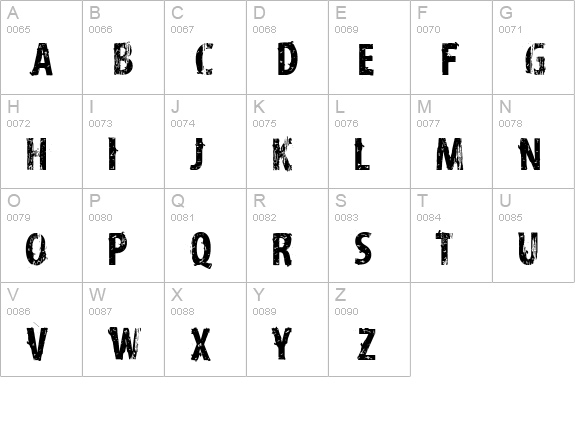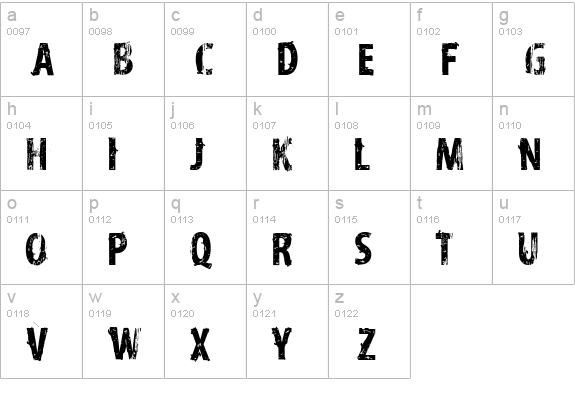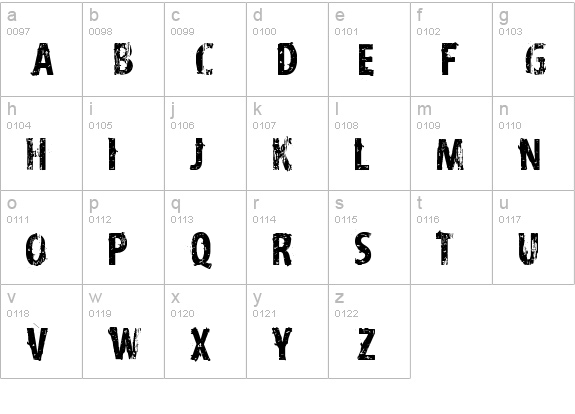
vtks distress Font Details
The VTks Distress font is a unique and versatile typeface that exudes a sense of raw energy and edgy style. Its distressed appearance gives it a rugged and authentic feel, making it perfect for projects that require a touch of vintage or grunge aesthetics. With its bold and impactful letterforms, VTks Distress commands attention and adds a distinct personality to any design. This font is not only visually striking but also free to download, making it a valuable resource for designers, artists, and creatives looking to add a touch of character to their work. You can easily access and download the VTks Distress font at FontsMarket.com, where you can explore a wide range of free fonts to enhance your projects. Don't miss out on this opportunity to elevate your designs with the striking and expressive VTks Distress font.